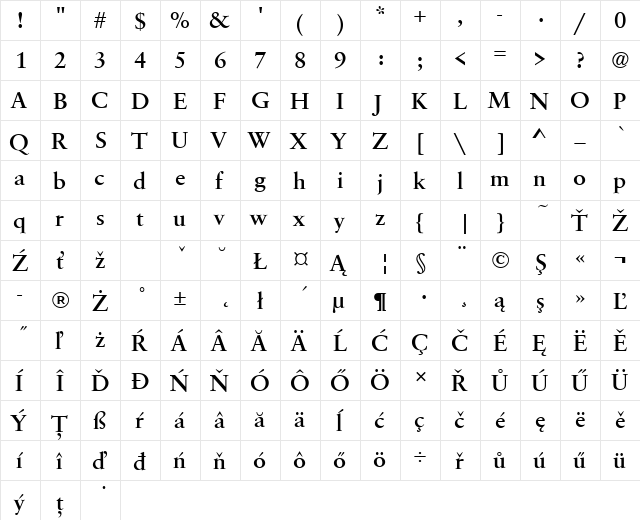
SabiusTEEMed Regular
Design Context for SabiusTEEMed Typeface
SabiusTEEMed is a composed and adaptable typeface that performs quietly and consistently across a wide range of design contexts.
Pro Tip: Use SabiusTEEMed in both headline and body roles to test its range before committing to a single application.